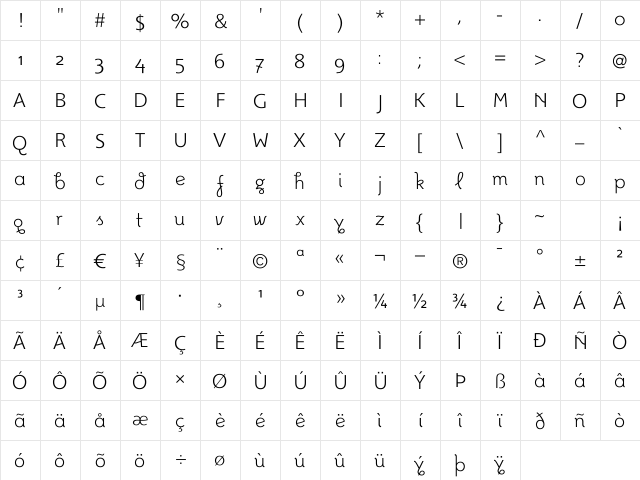
FoxLight Regular
Design Context for FoxLight Typeface
FoxLight is a composed and adaptable typeface that performs quietly and consistently across a wide range of design contexts. Its slender proportions lend an understated elegance to any composition.
Pro Tip: Pair FoxLight with a font of contrasting weight or personality to build a more expressive typographic hierarchy.